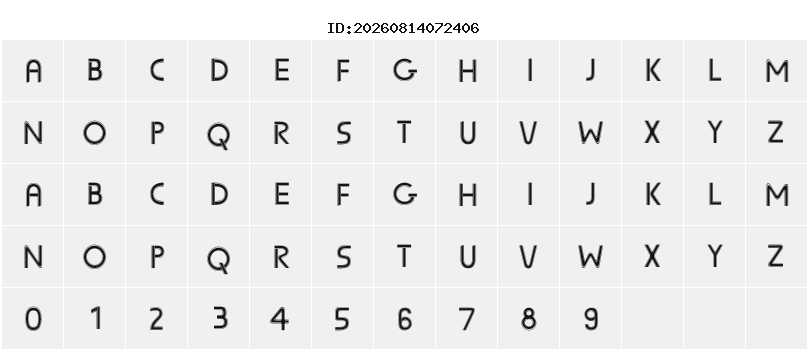
Sunscreen Triline Preview
• Font Name: Sunscreen Triline
• Full Font Name: Sunscreen-Triline
• PostScript Name: Sunscreen-Triline
• Designer: Simon Cozens
About Sunscreen Triline.otf
Sunscreen Triline.otf is a modern, elegant sans-serif font designed for ultimate readability and visual harmony. Perfect for branding, headlines, web design, and print materials.